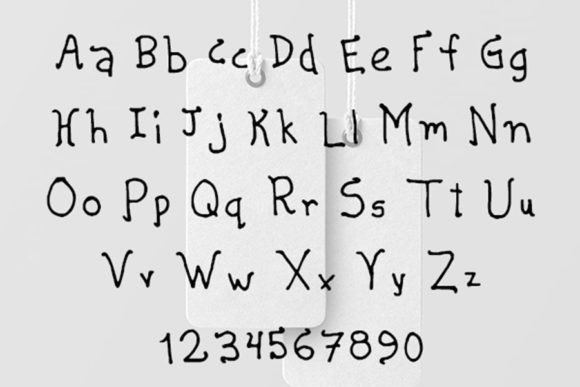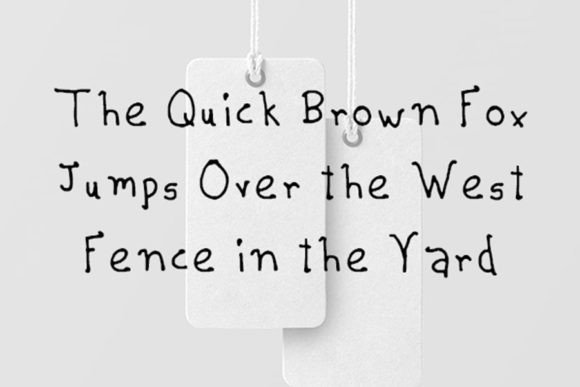
About Tagline Font
The Tagline font is a friendly and approachable handwritten typeface that brings charm and creativity to your design work. With its relaxed style and clean structure, it’s the perfect font to add warmth and personality to everything from DIY crafts to professional graphics. This typeface was created with simplicity in mind, but it still delivers a unique character that stands out.
Simple, Cheerful, and Full of Life
Tagline offers a casual handwritten look that feels authentic and joyful. Each letter has a natural, flowing form that mimics real handwriting while keeping things neat and readable. This makes the font especially effective for informal designs, children’s products, hobby branding, and quote graphics.
Despite its simplicity, Tagline carries a distinct vibe that immediately feels cheerful. It’s lighthearted but never messy, and it strikes the right balance between playfulness and practicality.
Perfect for Creative Projects
Whether you’re designing greeting cards, planner stickers, social media graphics, or custom T-shirts, the Tagline font is a great addition to your creative toolkit. It’s designed to complement projects that aim for a handmade or personalized feel.
Tagline pairs well with bold sans-serif or clean script fonts, allowing you to create interesting font combinations. Its flexibility makes it ideal for both digital and print designs, and it maintains readability even at smaller sizes.
Bring Handwritten Warmth to Your Work
If you’re looking for a typeface that feels handcrafted, cozy, and joyful, the Tagline font is the perfect choice. It gives your content a relaxed but expressive voice that connects with your audience.